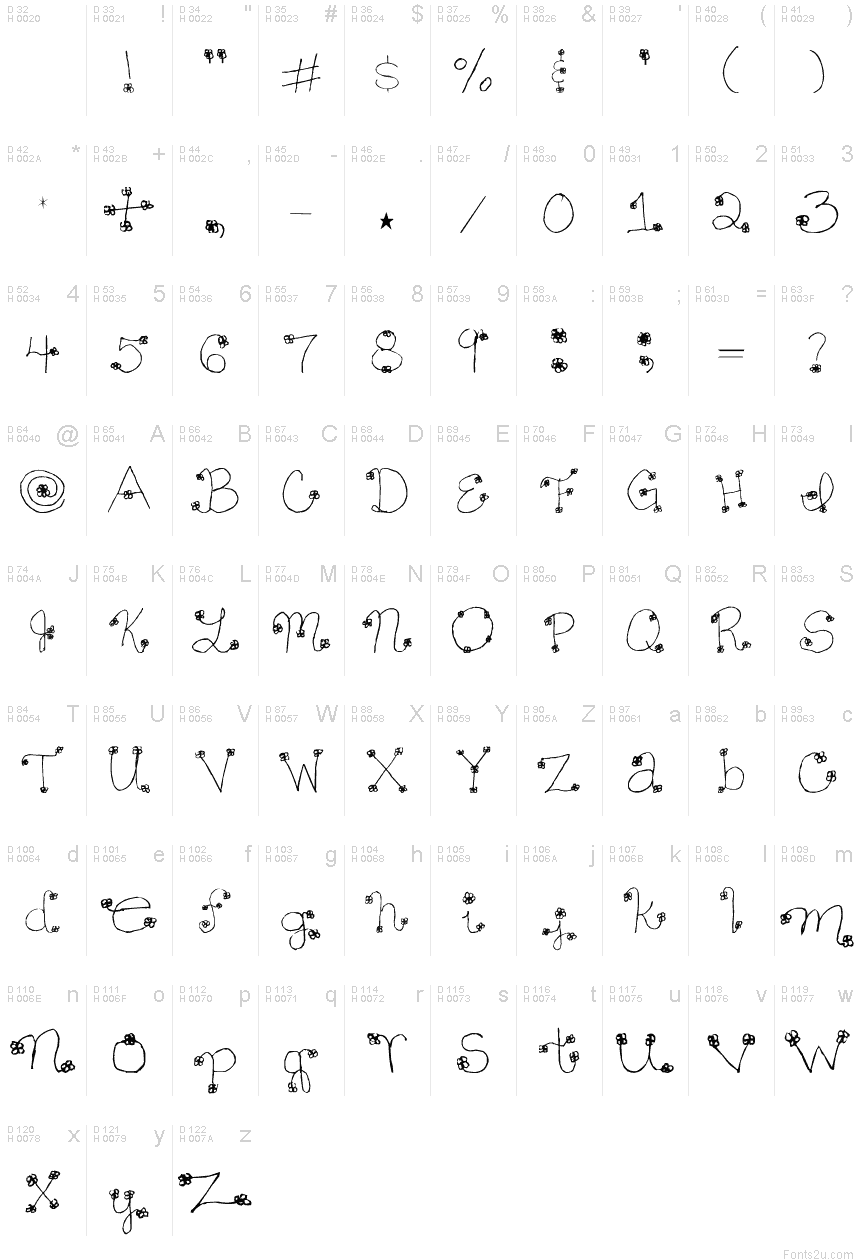
Daisy Mae
Daisy Mae font by Jennifer Heinicke is a free decorative display font. Its thin, wiry strokes feel hand-drawn and a little mischievous, with tiny daisy doodles tucked into the letterforms that make the whole typeface feel light, breezy, and homemade in the best way.
Using Daisy Mae adds instant charm to spring flyers, greeting cards, kids’ party invites, scrapbook titles, craft packaging, garden market signs, and boutique social posts. This free font works best at larger sizes so the floral details stay crisp, and it pairs nicely with a clean sans serif when you need the layout to stay easygoing but readable.
A complete alphabet with numbers and most punctuation, suitable for love letters to the cast of "Dukes of Hazzard" and shopping lists for Burpee's Seed Catalog.